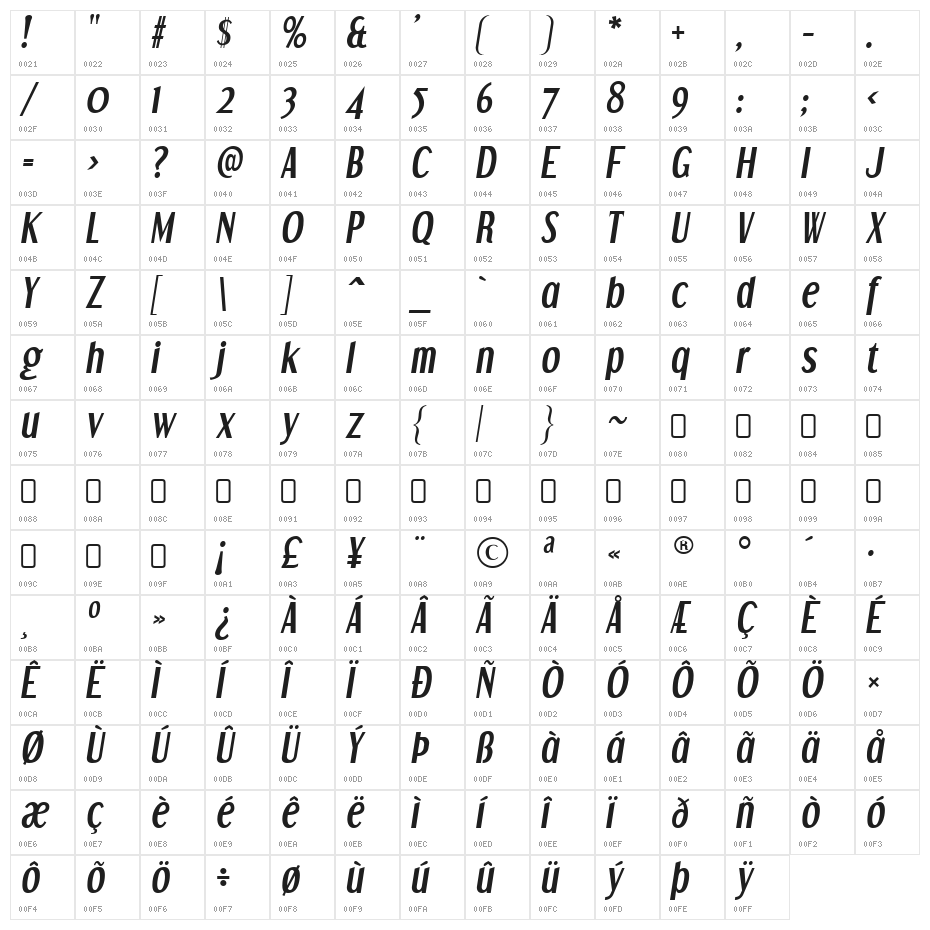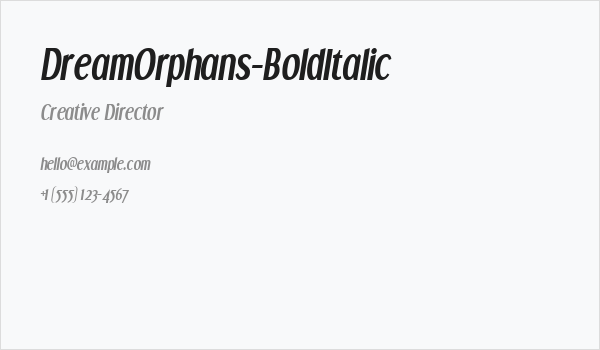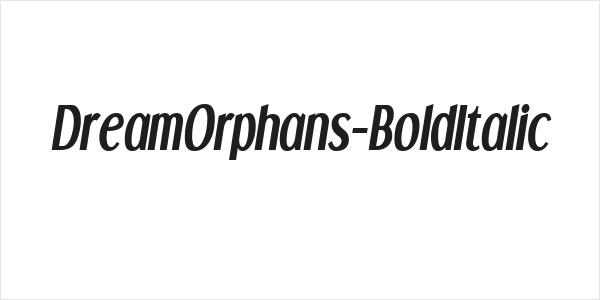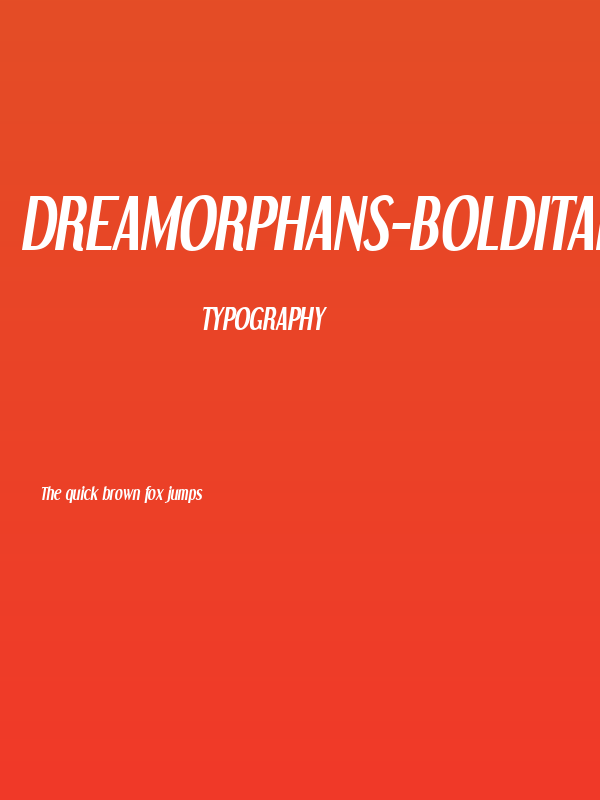
DreamOrphans-BoldItalic Font
DreamOrphans-BoldItalic Description
This font features a bold and italicized style, characterized by its dynamic and forward-leaning posture. The letters are elongated with a slight slant, giving a sense of movement and urgency. The strokes are thick and consistent, providing a strong visual impact. The uppercase and lowercase letters maintain a cohesive look, with smooth curves and sharp edges that enhance readability. The numerals are equally bold, ensuring they stand out in any context. Special characters are designed with the same attention to detail, making them suitable for various applications.
| Proposed Projects | Ideal for branding, advertising, and editorial design where a strong, impactful presence is needed. |